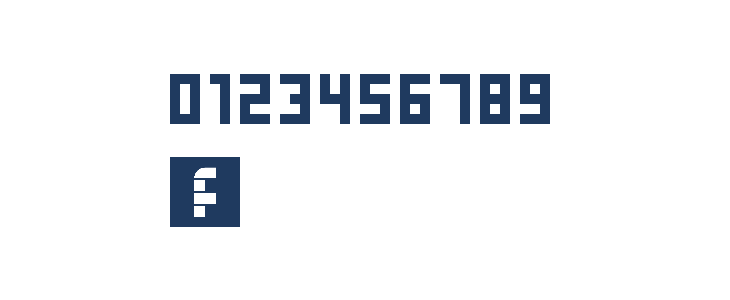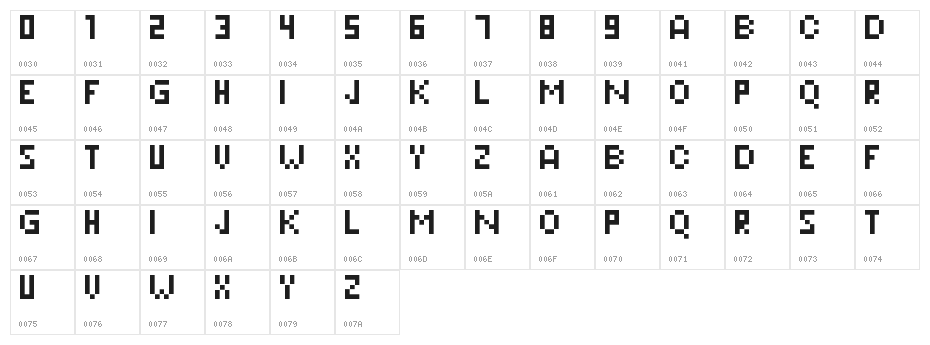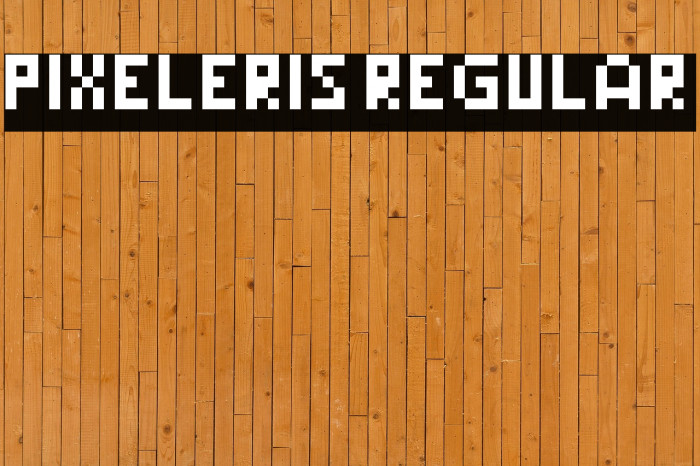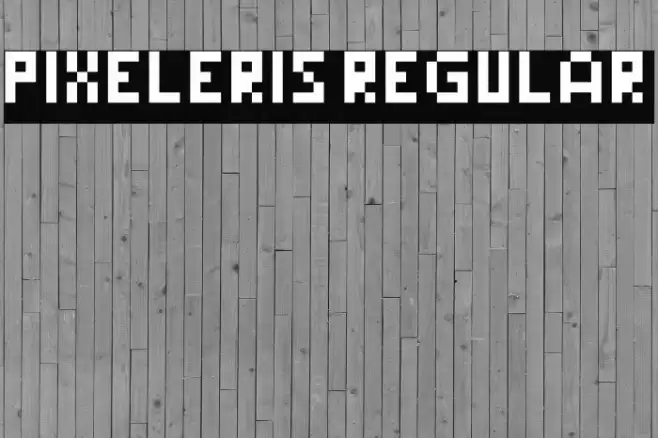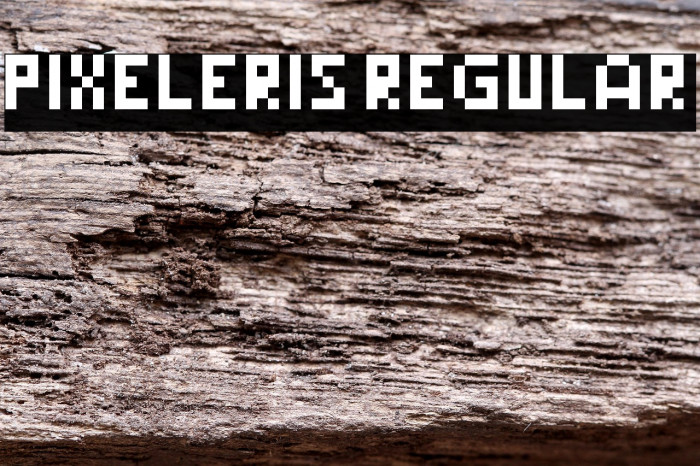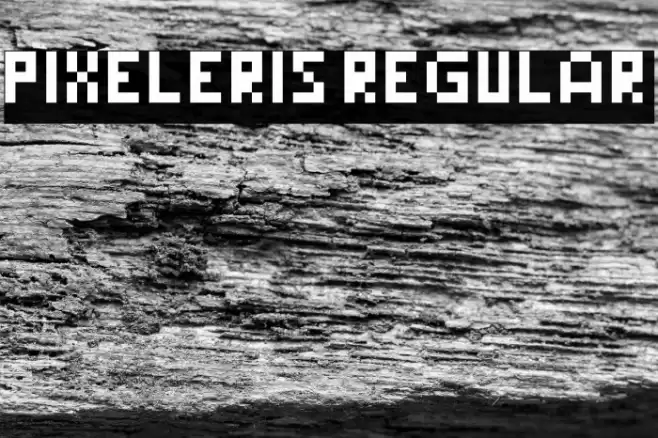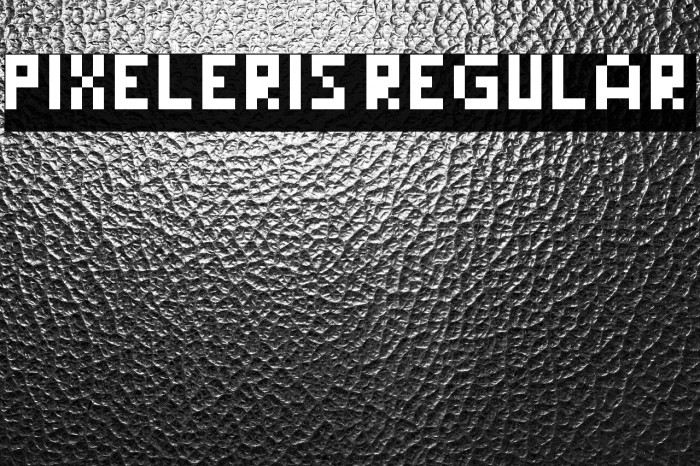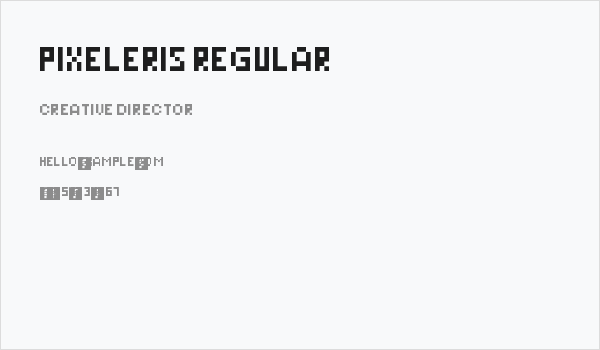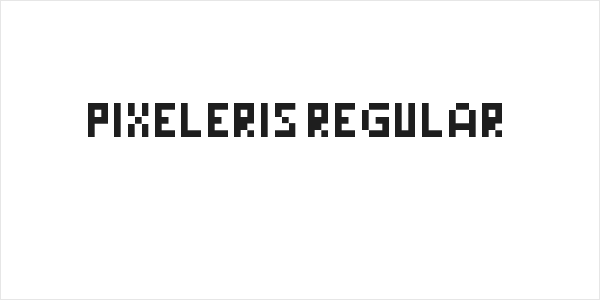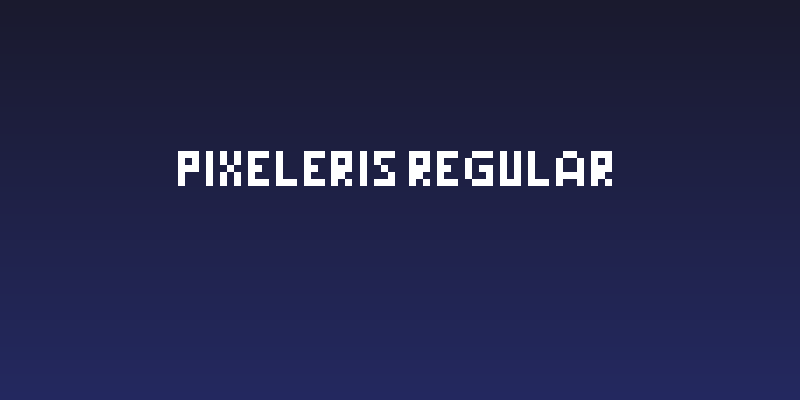
Pixeleris Regular Font
Pixeleris Regular Description
This font features a pixelated, blocky design reminiscent of early digital displays and retro video games. Each character is constructed with a uniform grid-like structure, giving it a distinctly digital and geometric appearance. The uniformity in stroke width and the absence of curves contribute to its mechanical and structured look. The characters are evenly spaced, maintaining a consistent rhythm across the text. This style evokes a sense of nostalgia and is ideal for projects that aim to capture a vintage digital aesthetic.
A pixelated, blocky font with a retro digital aesthetic from Regular fonts.
- Proposed Projects: Ideal for retro video game designs, digital art projects, tech-themed posters, and any creative work that seeks to evoke a sense of nostalgia for early digital displays.
- Overall Style: Vintage